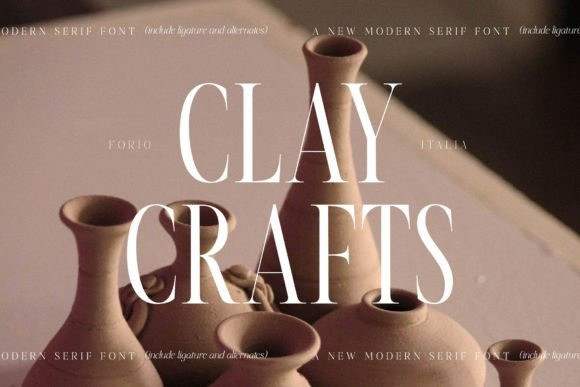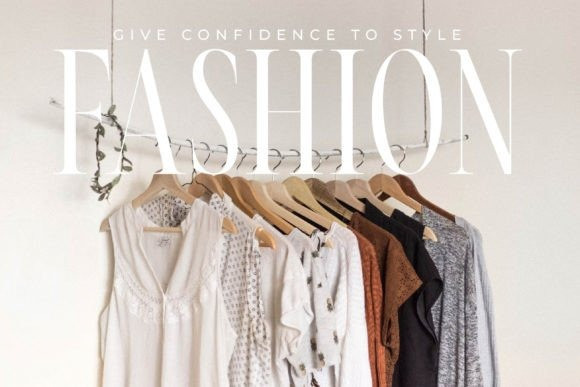
Nortine Font
Nortine Font is a serif modern and classic typeface that has its own unique style & modern look. This typeface is perfect for an elegant & luxury logo, book or movie title design, fashion brand, magazine, clothes, lettering, quotes, and so much more.